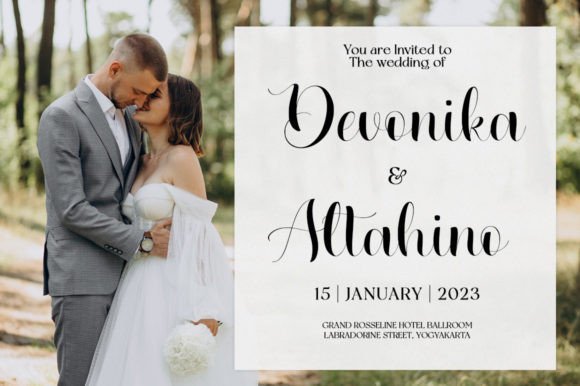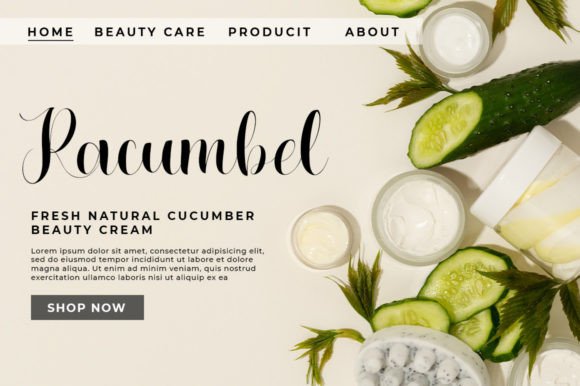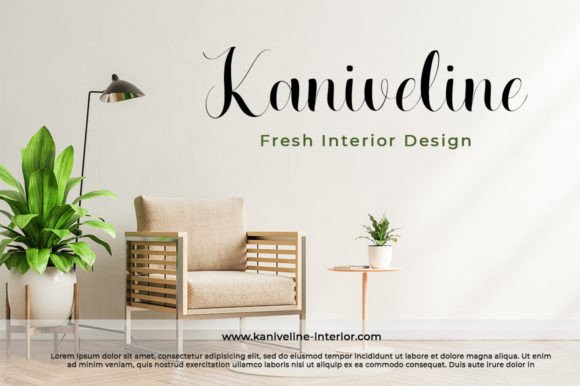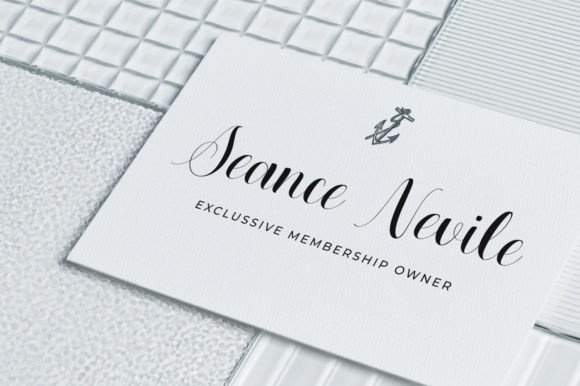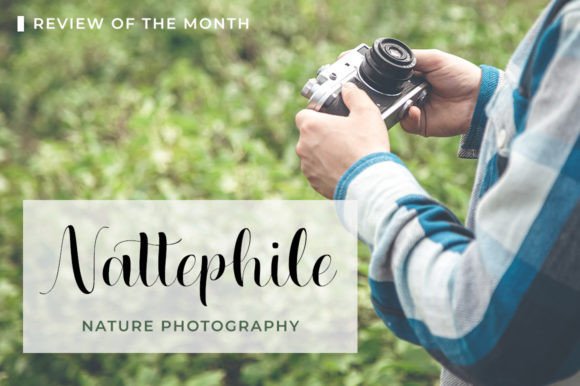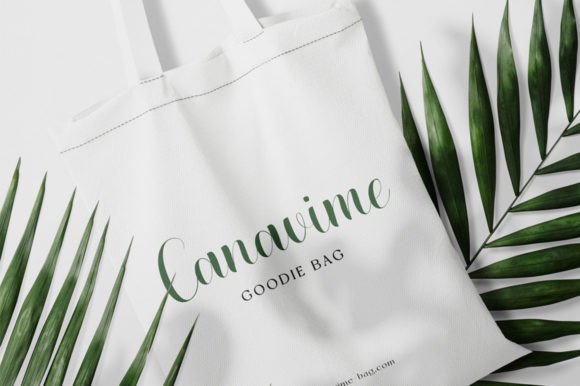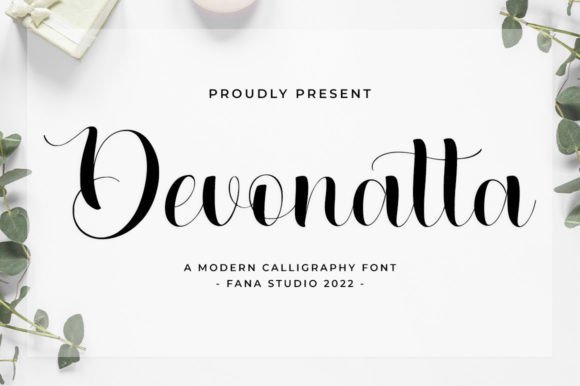
Introducing Devonatta Script: Elevate Your Designs with Elegance and Sophistication
In the world of design, fonts play a pivotal role in conveying the tone and aesthetic of a project. Among the myriad of typefaces available, handwritten fonts have a unique charm that can add a personal touch to any design. It is with great excitement that we introduce Devonatta Script, a stylish handwritten font that is poised to revolutionize the way you approach your creative projects. With its elegant, classy, and modern look, Devonatta Script is the perfect addition to your font collection, whether you’re a professional designer or a crafting enthusiast.
The Beauty of Devonatta Script
Devonatta Script is more than just a font; it’s an experience. This beautiful script font is meticulously crafted to offer a sophisticated and refined look that can instantly elevate your art projects. The fluid strokes and graceful curves of Devonatta Script exude elegance and poise, making it an ideal choice for projects that demand a high level of sophistication. From logos and branding to invitations, stationery, and wedding designs, Devonatta Script brings a level of class and refinement that is hard to match.
One of the standout features of Devonatta Script is its versatility. This gorgeous typographic font is perfect for a wide range of projects, including:
- Logos & Branding: Create a lasting impression with a logo that exudes elegance and sophistication.
- Invitations: Make your invitations stand out with a font that spells class and refinement.
- Stationery: Elevate your business or personal stationery with a touch of elegance.
- Wedding Designs: Add a romantic touch to your wedding designs, be it save-the-date cards, wedding invites, or ceremony programs.
- Social Media Posts: Stand out on social media with stylish and engaging posts.
- Advertisements: Give your ads a sophisticated look that captures attention.
- Product Packaging: Make your product packaging more appealing and premium.
- Product Designs: Incorporate Devonatta Script into your product designs for a unique look.
- Labels: Create eye-catching labels for your products or files.
- Photography: Use Devonatta Script as watermarks or in photo captions for a stylish look.
- Special Events: Whether it’s a gala, a birthday party, or any special occasion, Devonatta Script can add a touch of elegance to your event designs.
Why Choose Devonatta Script?
Choosing Devonatta Script for your design projects comes with numerous benefits:
- Unique and Personal Touch: Devonatta Script adds a personal and unique touch to your designs, setting them apart from the rest.
- Elegance and Sophistication: The font’s elegant and sophisticated look makes it perfect for projects that require a high level of refinement.
- Easy to Read: Despite its elegant look, Devonatta Script remains easy to read, making it functional as well as beautiful.
- Highly Versatile: Its versatility means you can use it across a wide range of projects, making it a valuable addition to your font library.
Devonatta Script is not just a font; it’s a design statement. With its stylish, elegant, and modern look, it has the power to transform your designs and give them a personal touch that resonates with your audience. Whether you’re working on a professional project or a personal crafting endeavor, Devonatta Script is your gateway to creating visually stunning and impactful designs. Embrace the elegance and sophistication that Devonatta Script has to offer and take your designs to new heights.